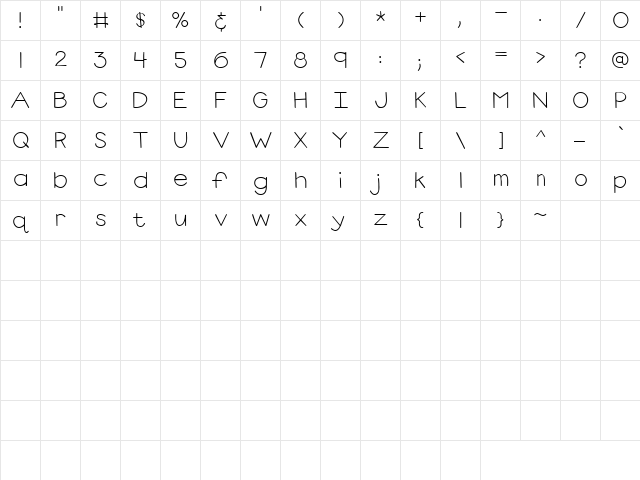
LD Elementary Regular
Design Context for LD Elementary Typeface
LD Elementary takes a measured approach to typography — its balanced proportions and neutral character make it a reliable workhorse for both digital and print work.